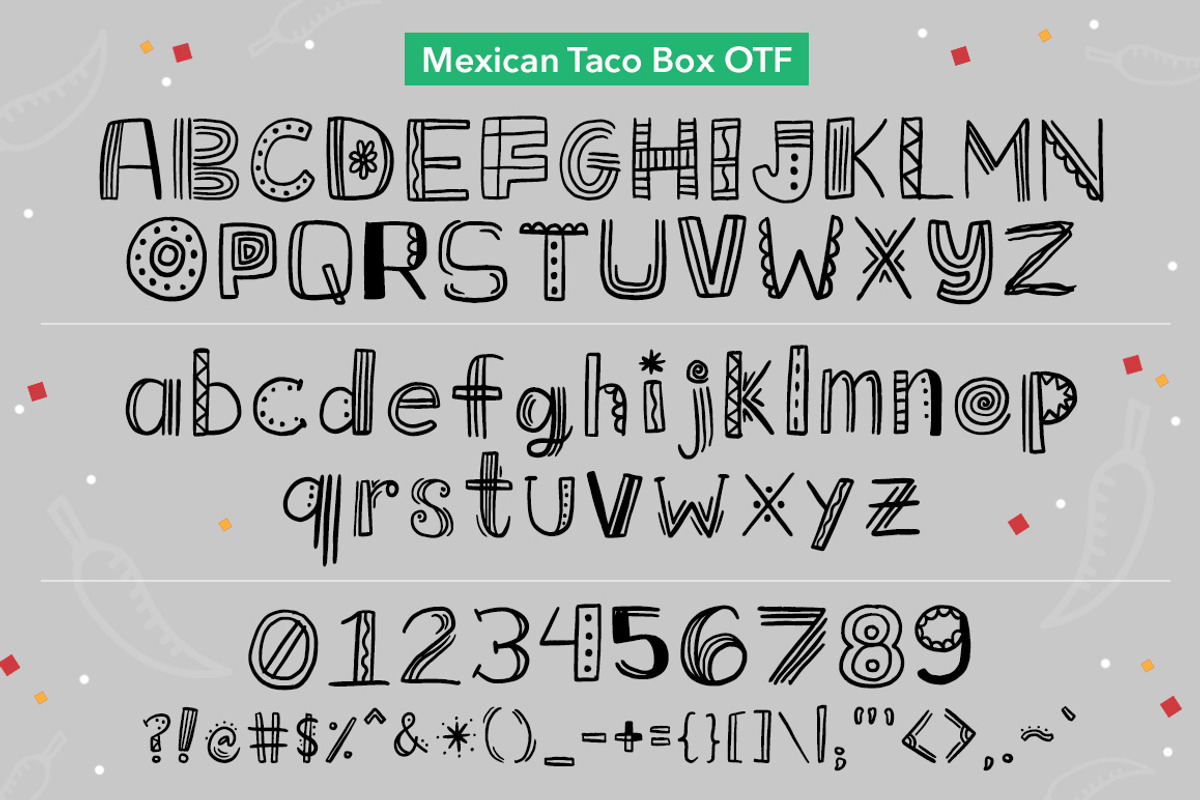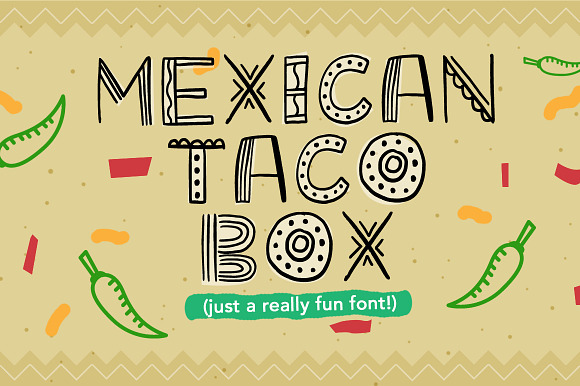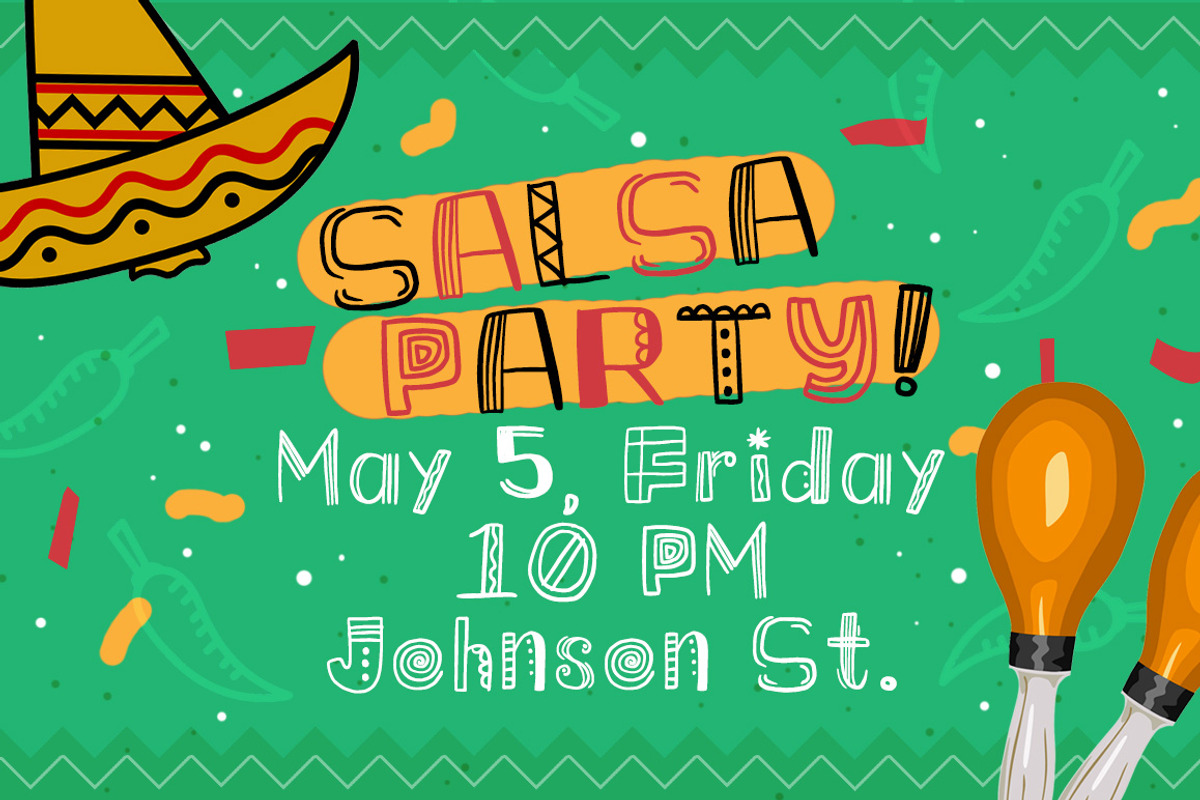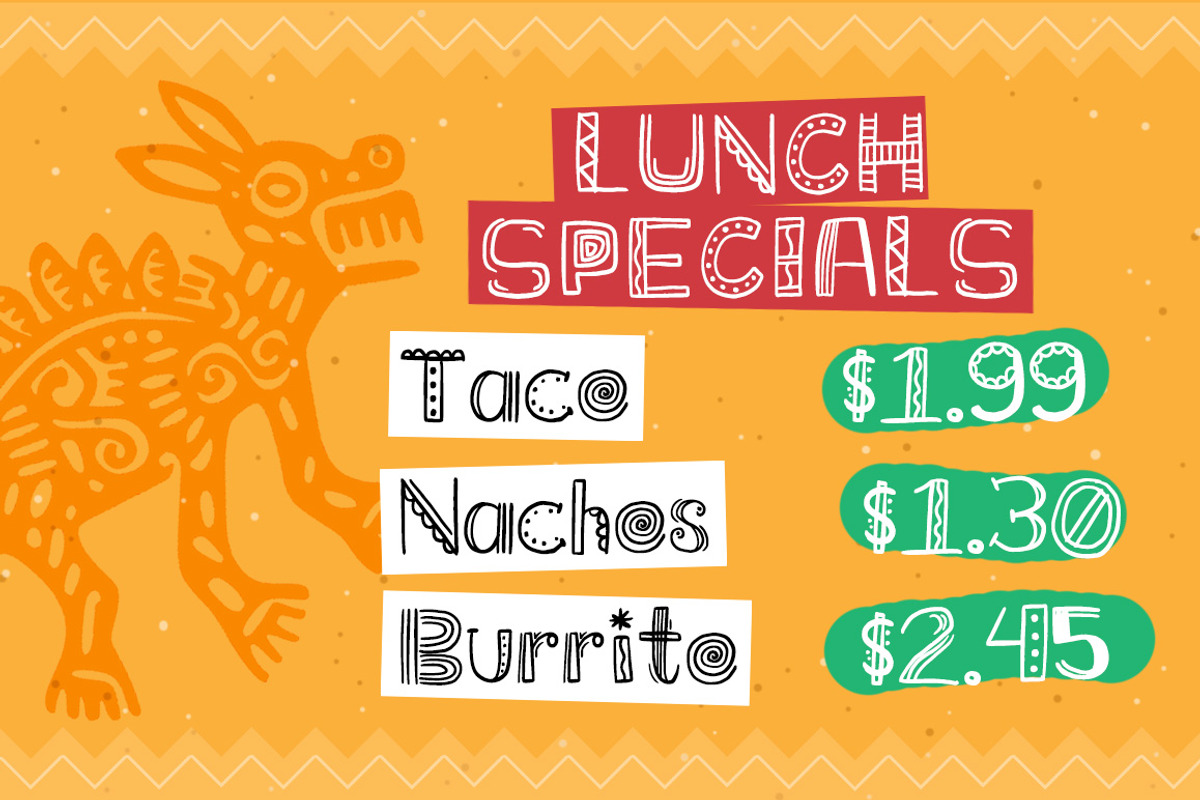
Mexican Taco Box Font
Mexican Taco Box just oozes with flavor and spice-- a fun, loud, and eccentric font that's perfect for adding that heat to your design projects: posters, magazines, food recipes, party invitations, and all other things that need this fun display type!
Numerals and punctuation
Why Mexican Taco Box Font is worth a look
Mexican Taco Box Font by Quirky Queen Media fits naturally into Branding, posters, packaging, typography.